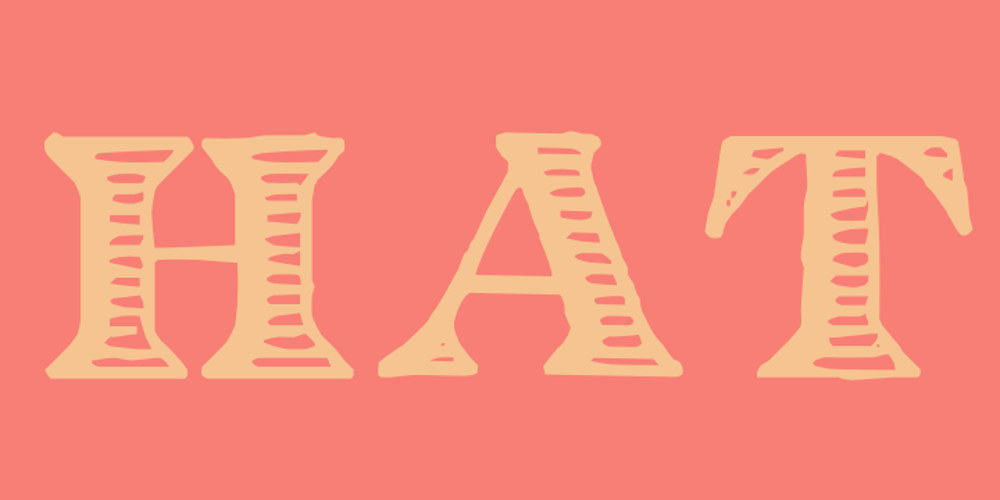
Eingraviert Font Family was designed by Paulo W and published by Intellecta Design. Eingraviert contains 3 styles and family package options. Eingraviert is based on old books capitals, with a wood type engraving style